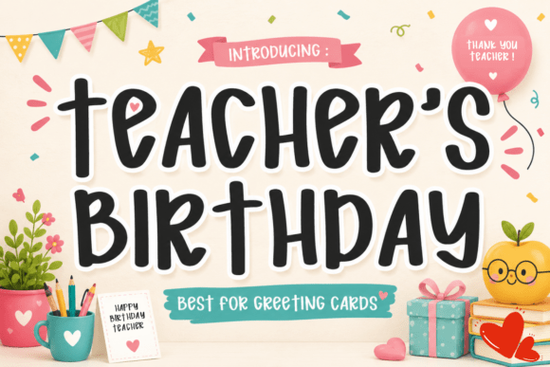
If you're designing a card, classroom banner, or printable for a teacher’s birthday, the Teacher's Birthday Font is a thoughtful, on-brand choice friendly without being childish, bold without sacrificing legibility. It fits naturally into school-themed projects and appreciation materials because it balances warmth and clarity: think handwritten charm with clean spacing and consistent weight. You’ll find it especially useful if you’re making digital downloads for Teachers Pay Teachers, custom mugs for school staff gifts, or vinyl-cut signs for classroom doors.
When does this font work best?
This display font shines in medium-to-large sizes think headlines, posters, SVG cut files, and social media graphics where personality matters more than body text flow. It’s not meant for paragraphs or small captions, but it pairs beautifully with simple sans-serifs (like Open Sans or Montserrat) for contrast. Since it’s designed with school celebrations in mind, it handles phrases like “Happy Birthday, Mrs. Chen!” or “Thank You, Coach Davis!” with equal ease.
You’ll also notice subtle details that make it feel intentional: slightly rounded terminals, gentle variations in stroke width, and a consistent baseline that keeps lines of text looking tidy even when layered over photos or busy backgrounds. That’s why crafters using Cricut or Silhouette machines report fewer alignment issues compared to more irregular script fonts.
How does it compare to other popular display fonts?
Unlike tightly spaced outline fonts, Teacher's Birthday Font has generous letter spacing out of the box so you won’t need to manually adjust kerning for most common phrases. It’s also less decorative than many fancy scribble fonts, which helps it stay readable at smaller print sizes (like 1.5-inch tall text on a mini chalkboard sign).
If you’ve used outline fonts before, you’ll appreciate how much faster it is to prep this one for cutting or layering it doesn’t require double-layering or stroke expansion tricks. And while some wedding-and-birthday fonts lean heavily into cursive or ornate flourishes, this one keeps things grounded and inclusive no looping ascenders that might confuse younger readers or get lost in low-res prints.
It shares some friendly energy with Sparko Font, but with more structure and less bounce. And unlike Block Riot Font, which leans urban and energetic, Teacher's Birthday Font feels warm and approachable ideal for elementary or special education settings where tone and accessibility matter.
Who uses it and how?
Small business owners selling printable teacher appreciation kits often use it for cover pages and quote cards (“You make learning magical!”). Print-on-demand sellers apply it to mugs, tote bags, and framed art especially when targeting back-to-school or end-of-year gift seasons. Educators themselves sometimes download it for editable Google Slides templates or classroom door decorations.
Designers building Canva templates for teachers frequently pair it with muted pastels or school-color palettes (navy + gold, forest green + cream), since its warmth holds up well against both bright and soft backgrounds. One user shared that they used it for a “Birthday Star of the Month” bulletin board set and reported that students recognized the font as “the happy teacher font,” which says something about its consistency and tone.
For crafters working with heat transfer vinyl, the font cuts cleanly at 120–150 DPI and weeding is straightforward thanks to open counters (like in ‘e’, ‘a’, and ‘o’). No tiny islands or fragile connections to worry about just smooth curves and confident strokes.